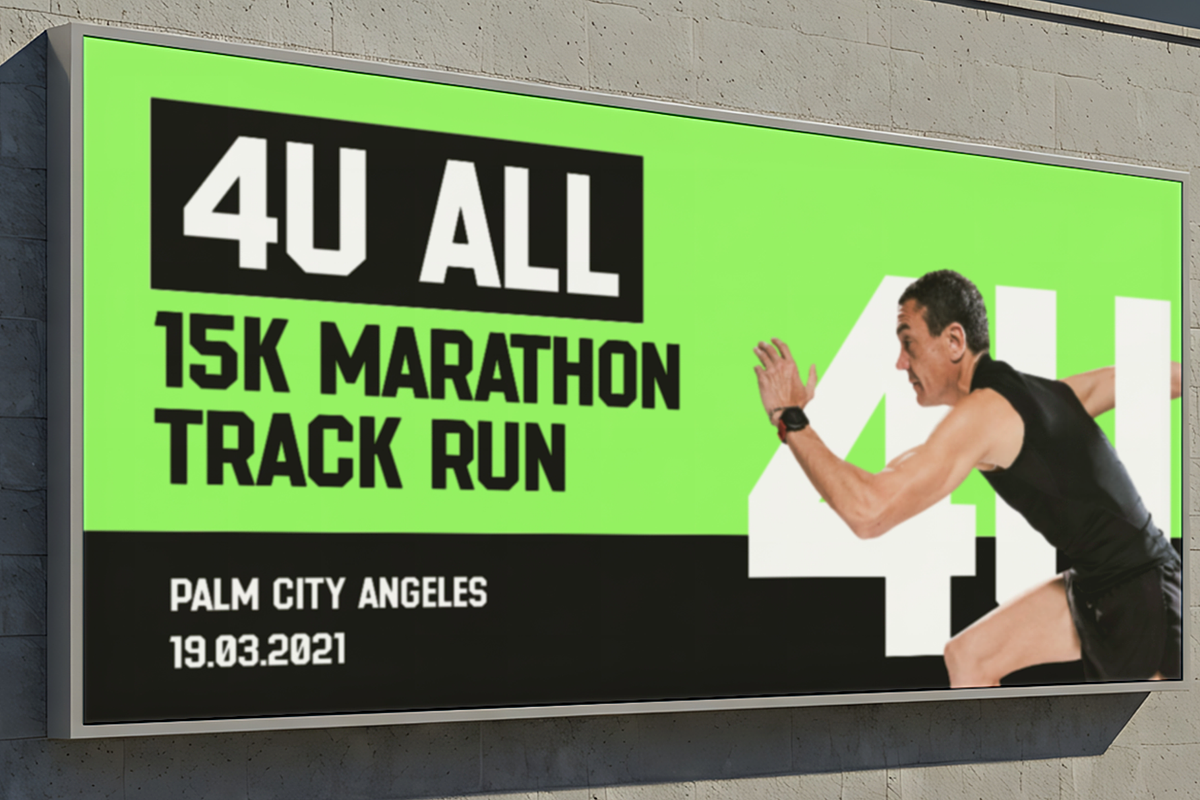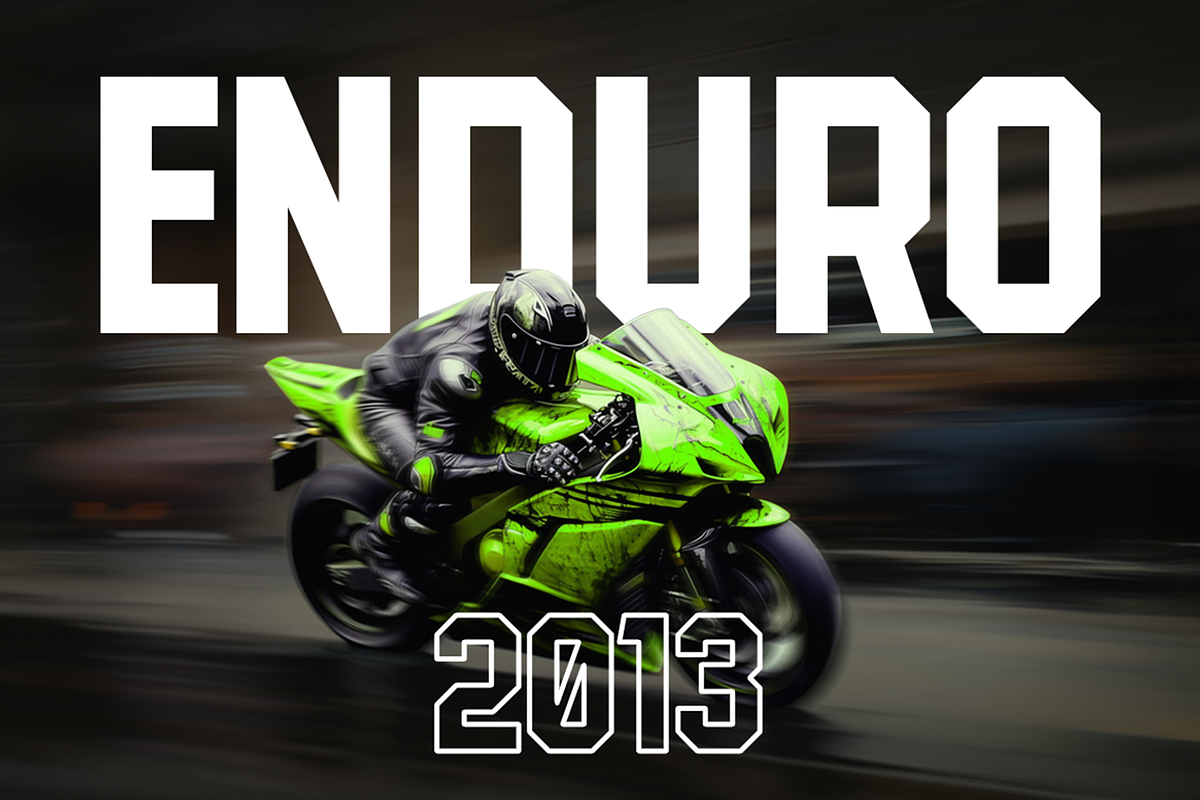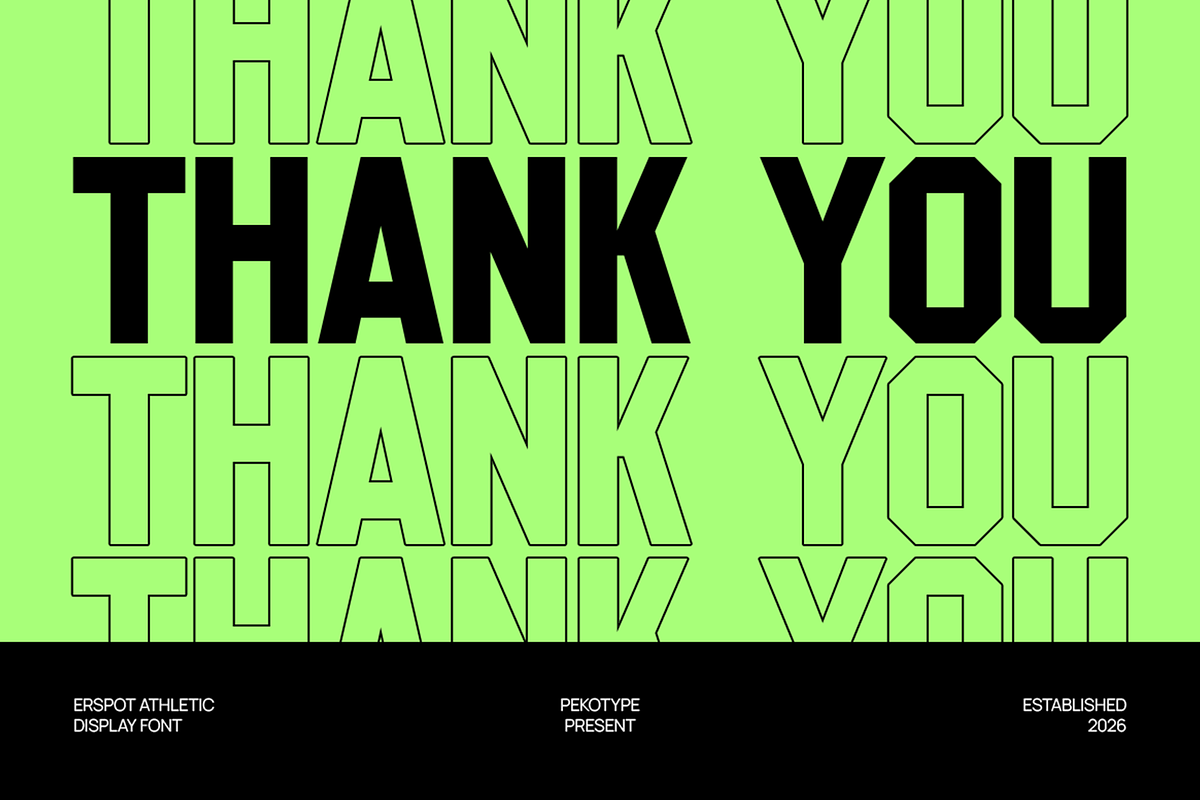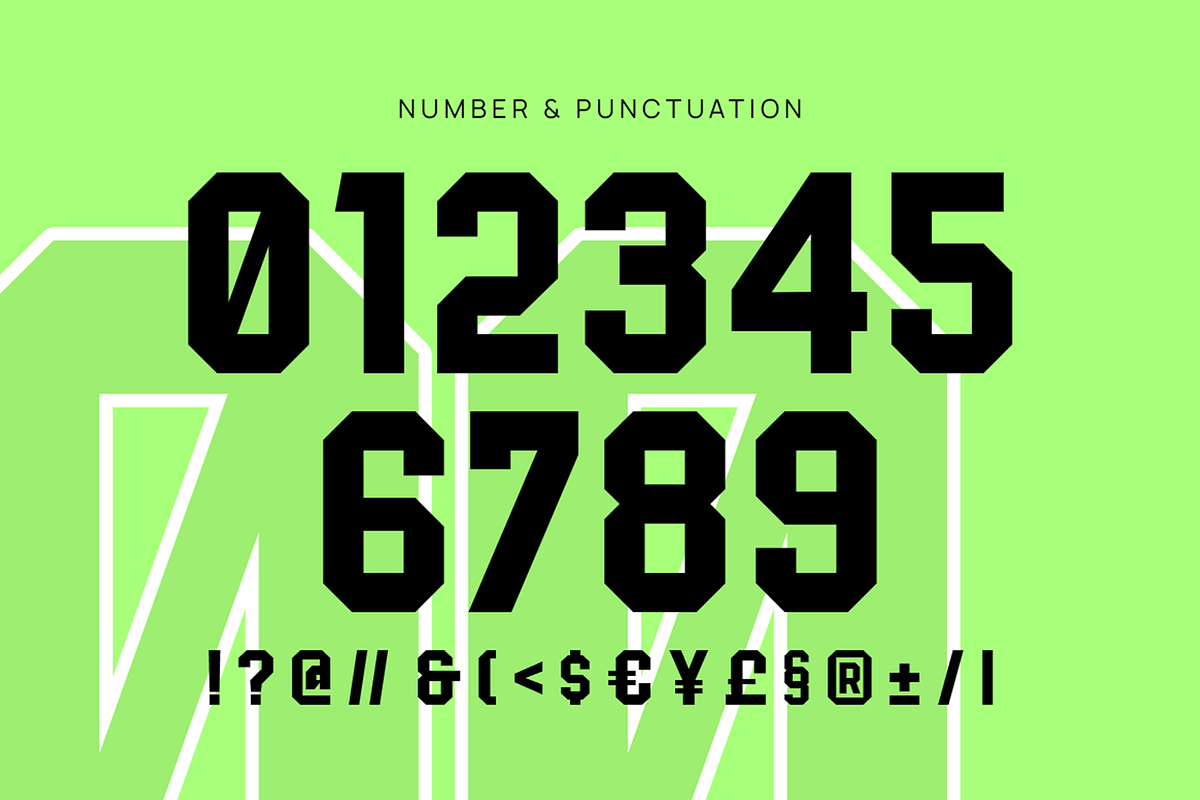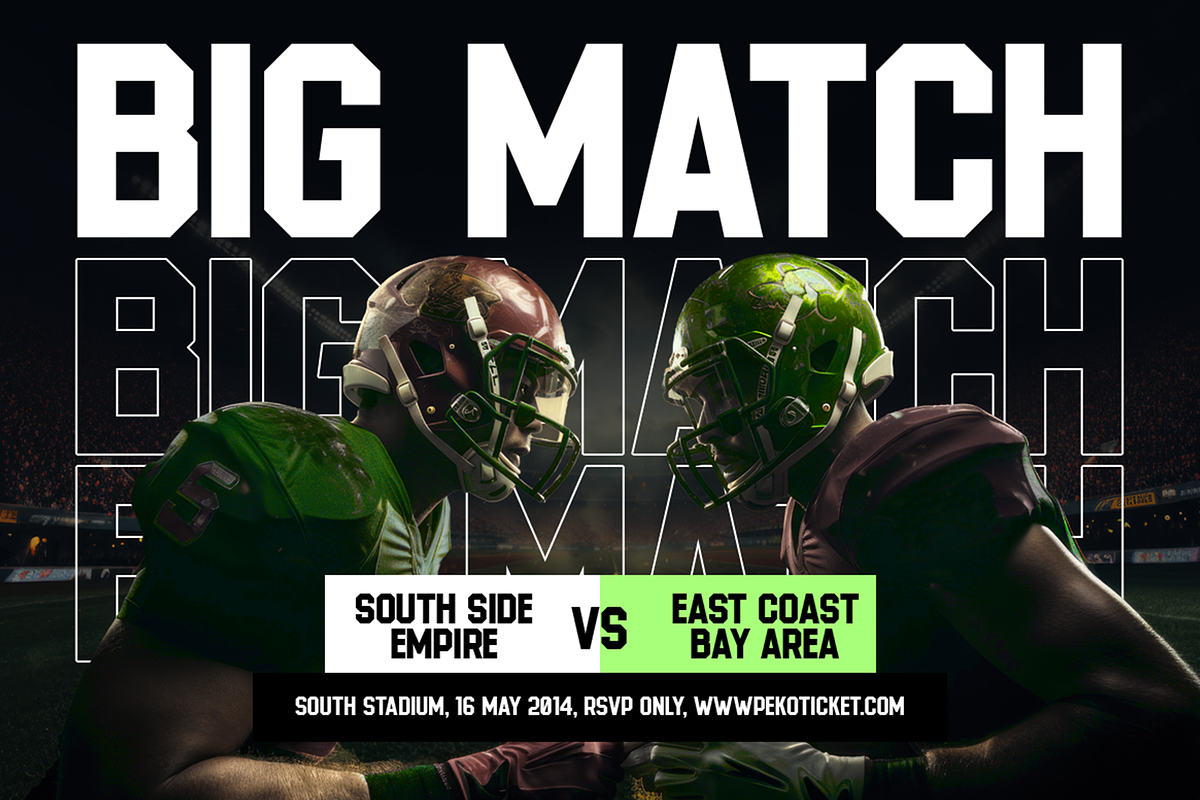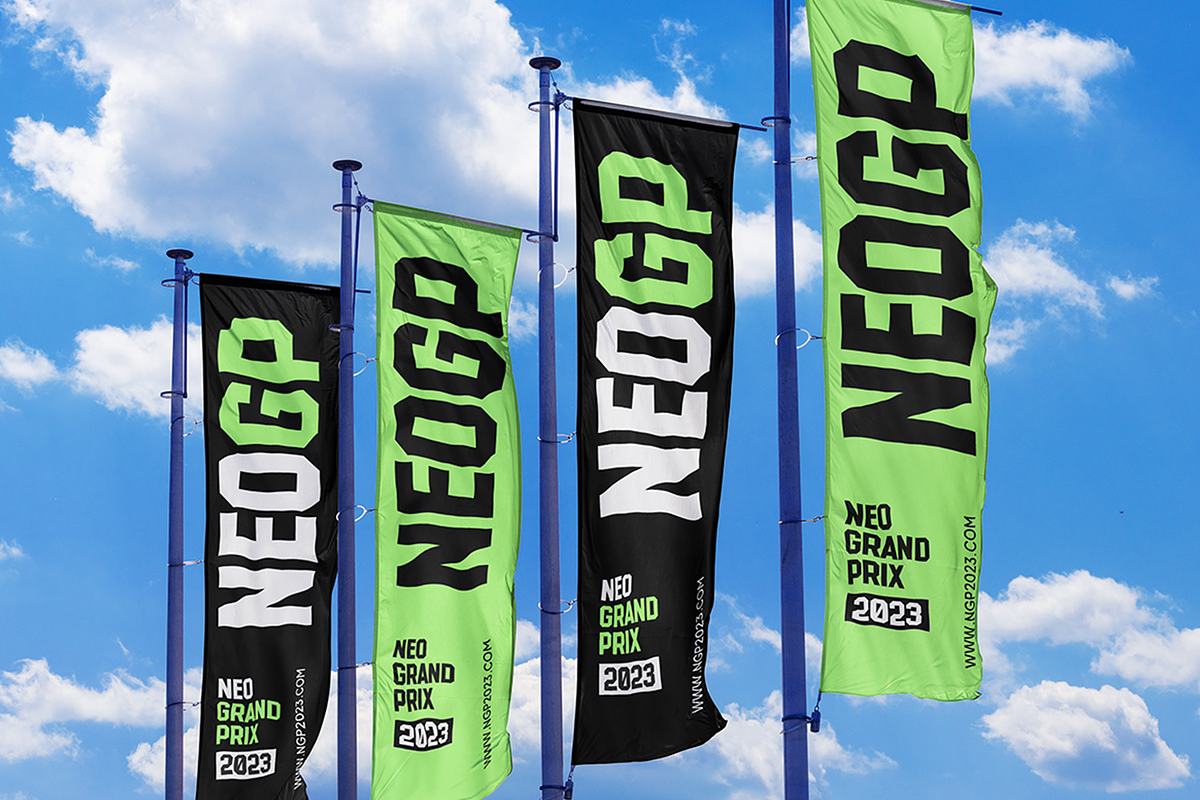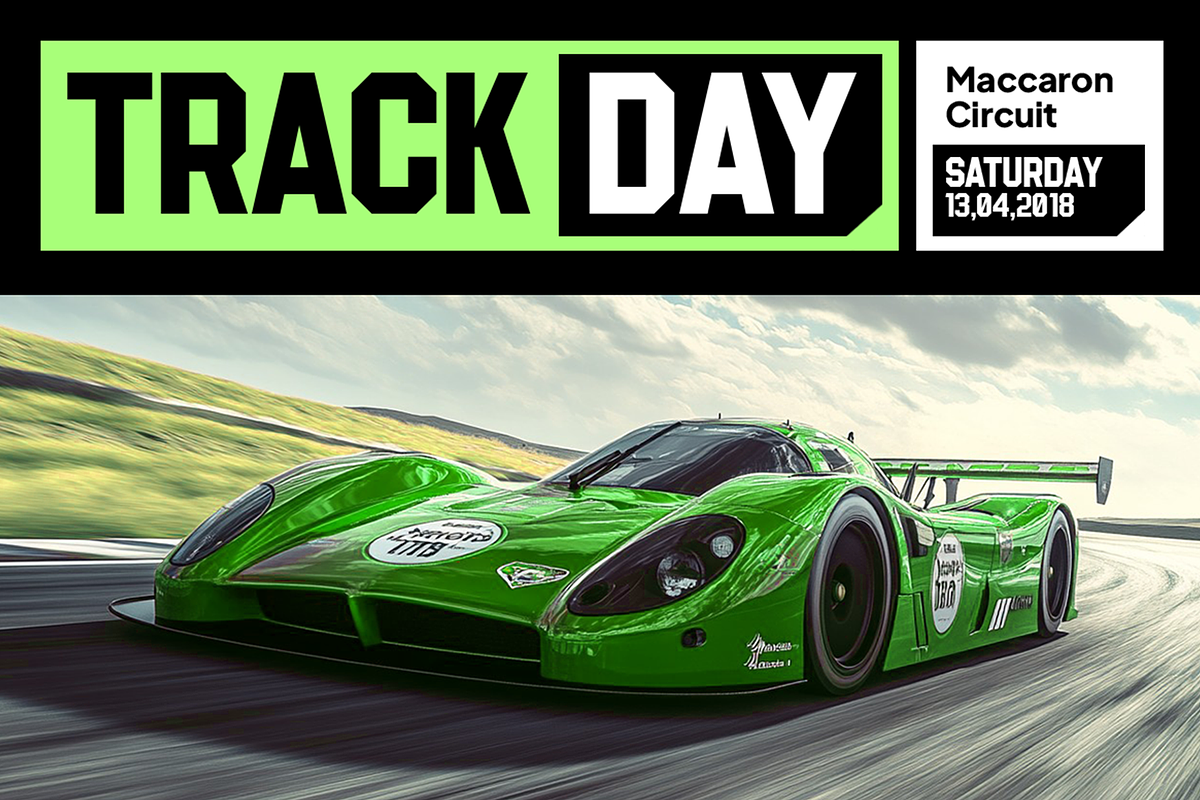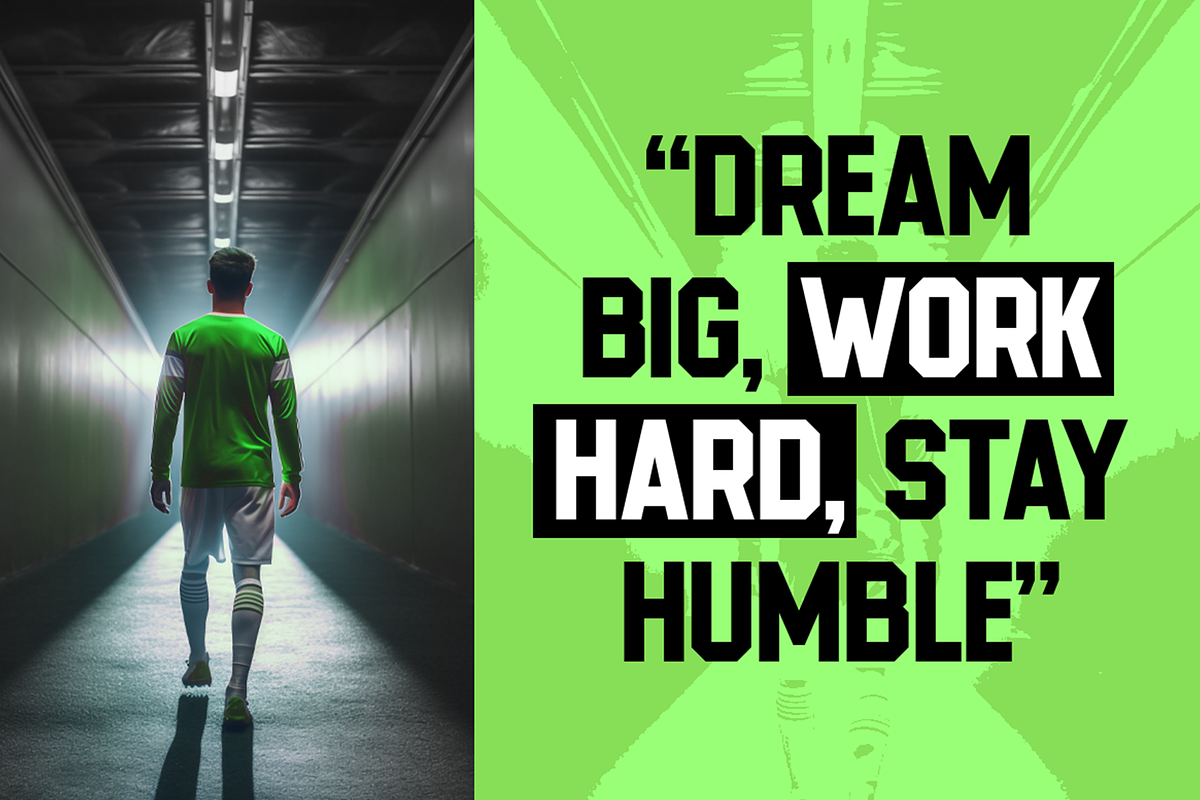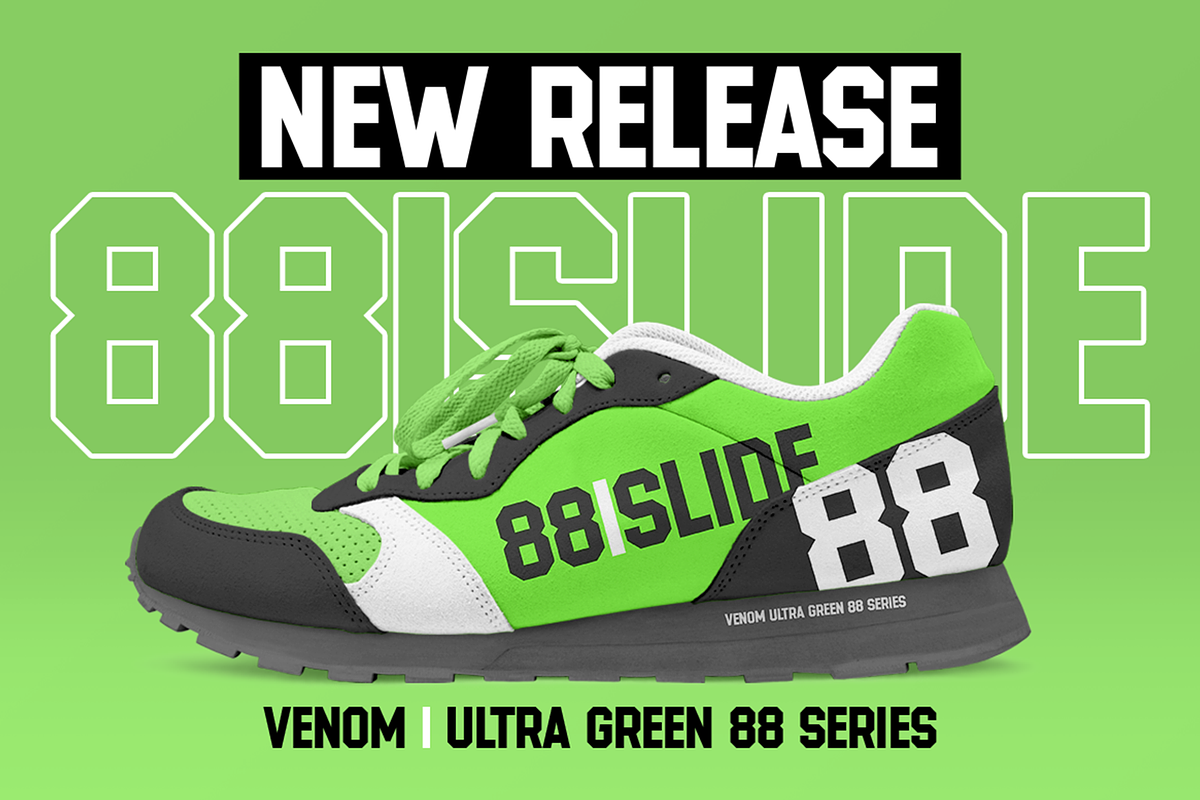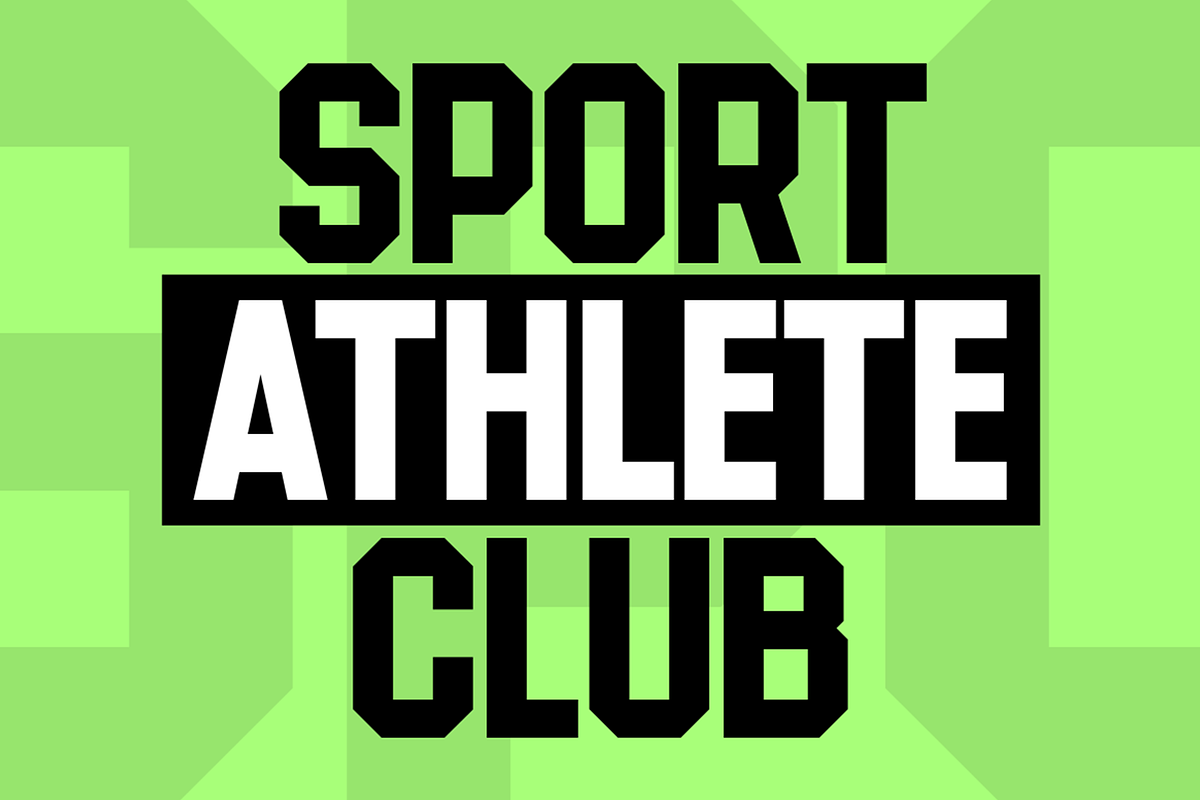
Erspot - Bold Condensed Sport Font
ERSPOT is a bold all-caps sport display font built for strong, high-energy visuals. The letters are sharp, compact, and powerful, giving every word a fast and athletic feel. ERSPOT is designed to look confident and modern, with a style inspired by sports branding and racing graphics. It’s the kind of font that instantly feels competitive, dynamic, and attention-grabbing while staying clean and easy to read.
This font is perfect for sports posters, team logos, jersey numbers, racing graphics, fitness branding, event banners, esports visuals, and promotional ads. It works great for football clubs, motorsport themes, athletic campaigns, gym branding, and any project that needs a strong performance vibe. ERSPOT helps designs feel bold, fast, and professional — ideal for creators who want a sporty display font that makes headlines hit harder.
- All Caps
- Number, Symbol, & Punctuation